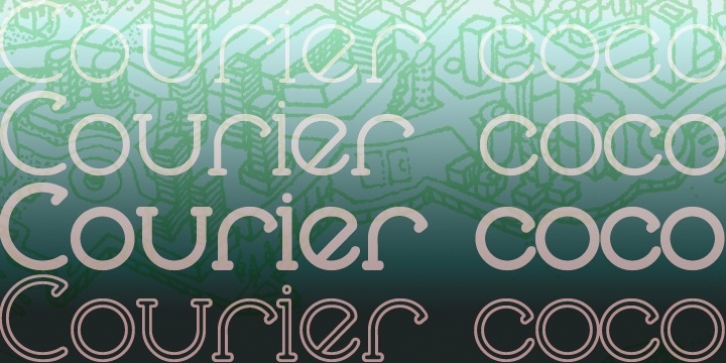
Courier Coco is simple, legible, and unmistakably unique.
This full flavored font family brings an elegant yet subtle spirit to any design. Check it out!
Courier Coco is extended, containing West European diacritics & ligatures, making it suitable for multilingual environments & publications.